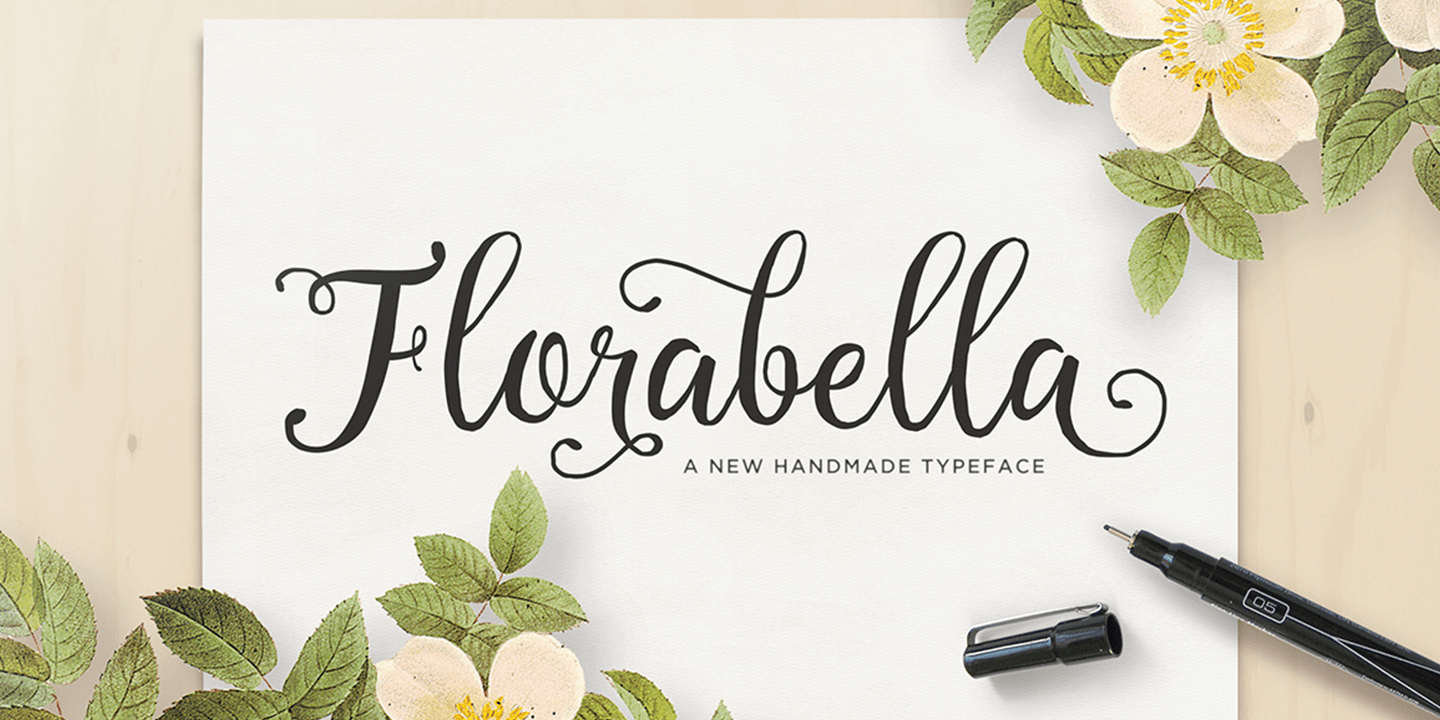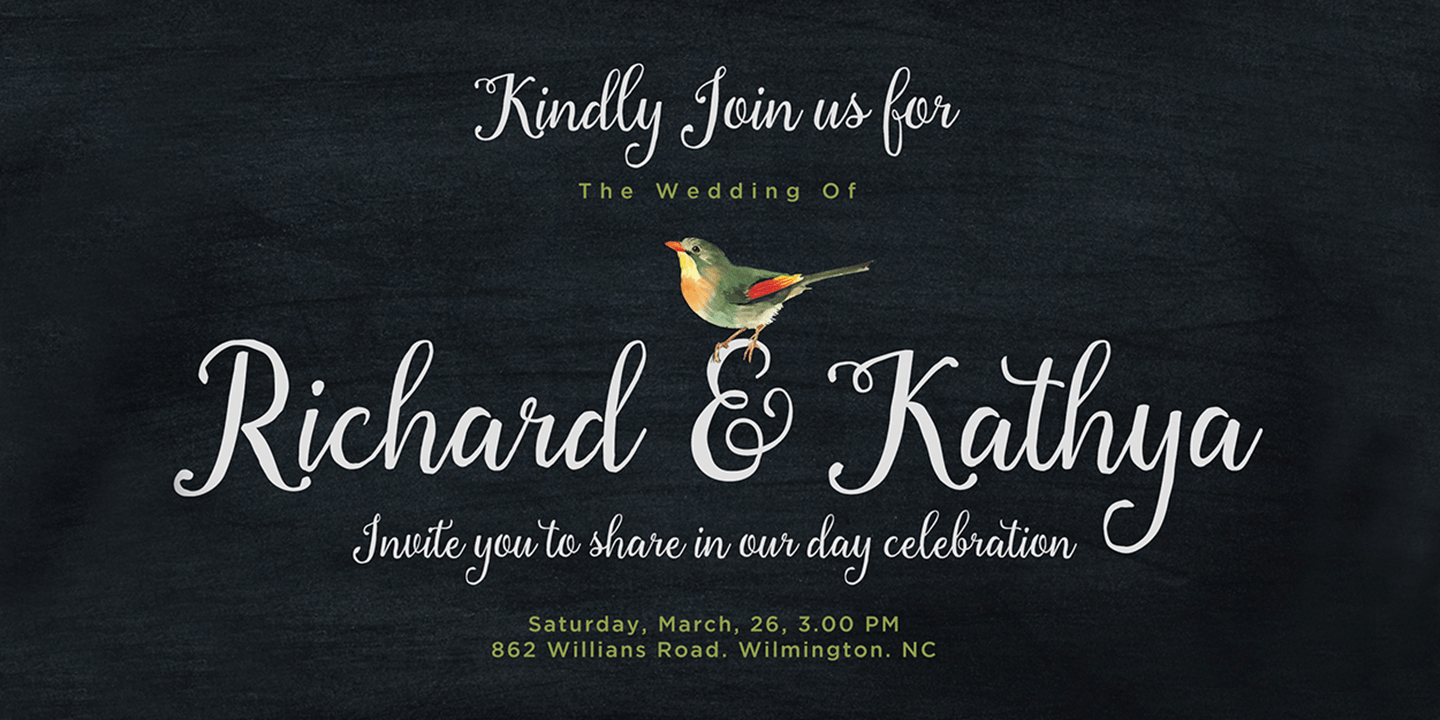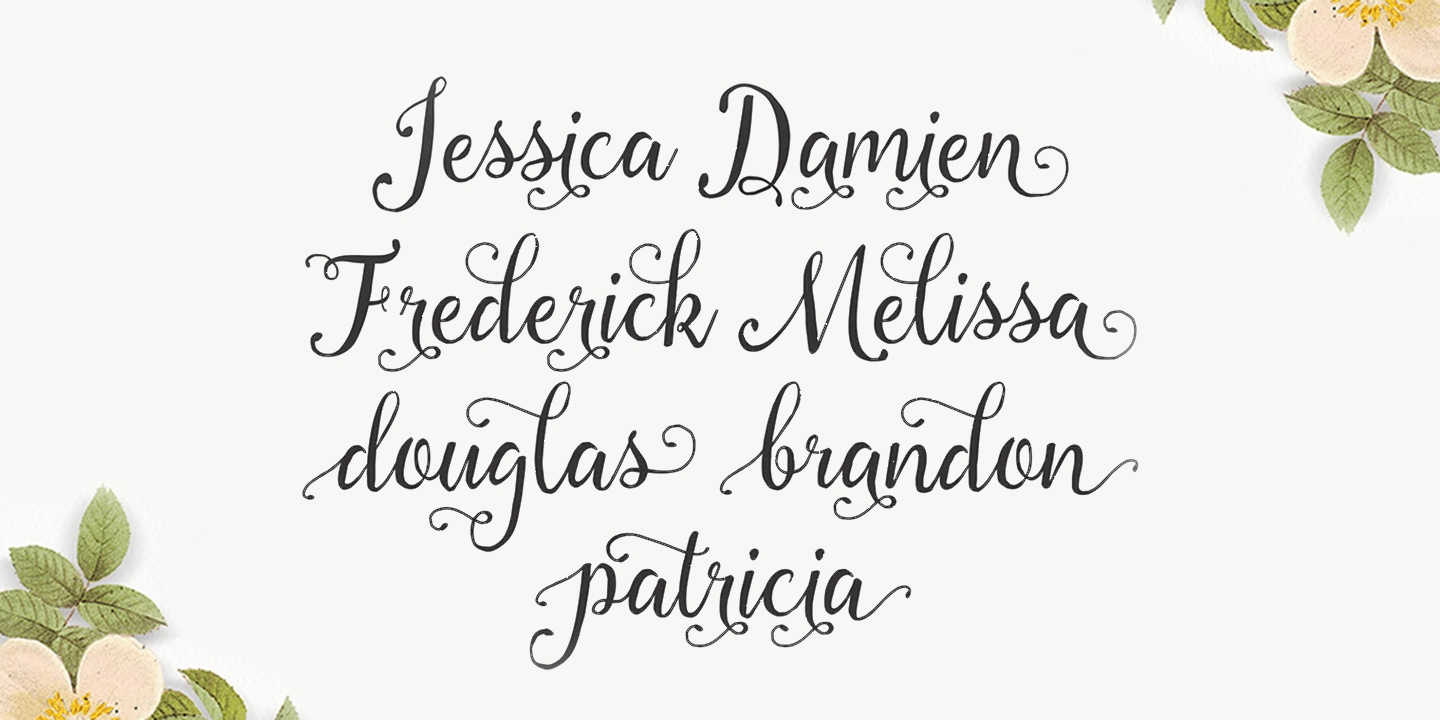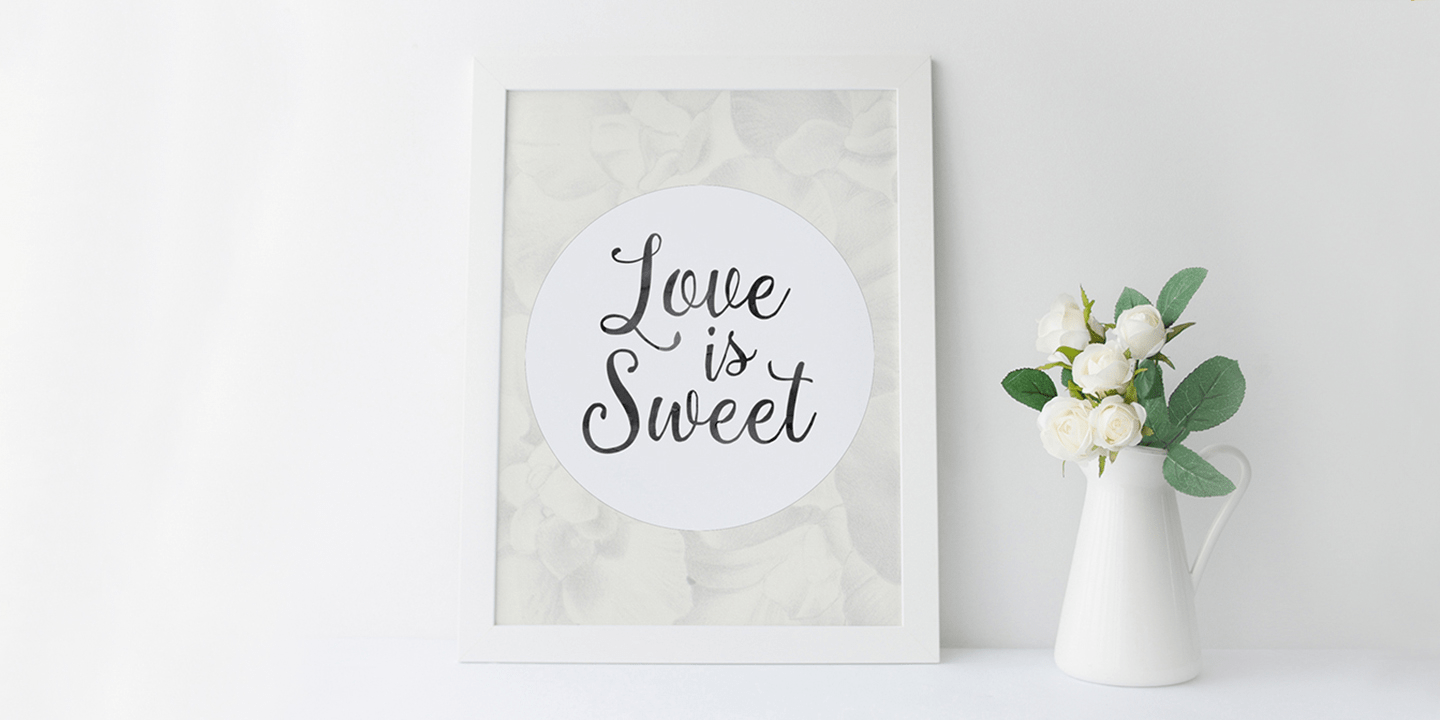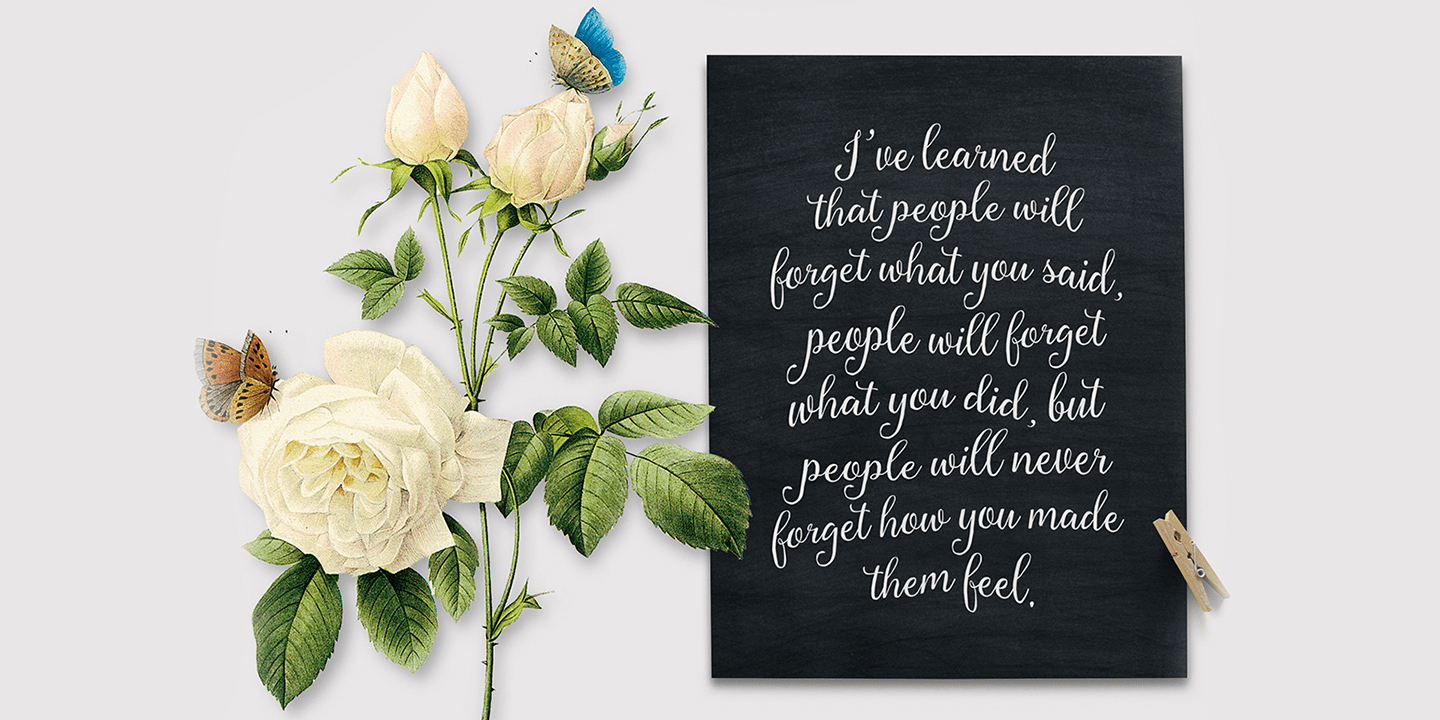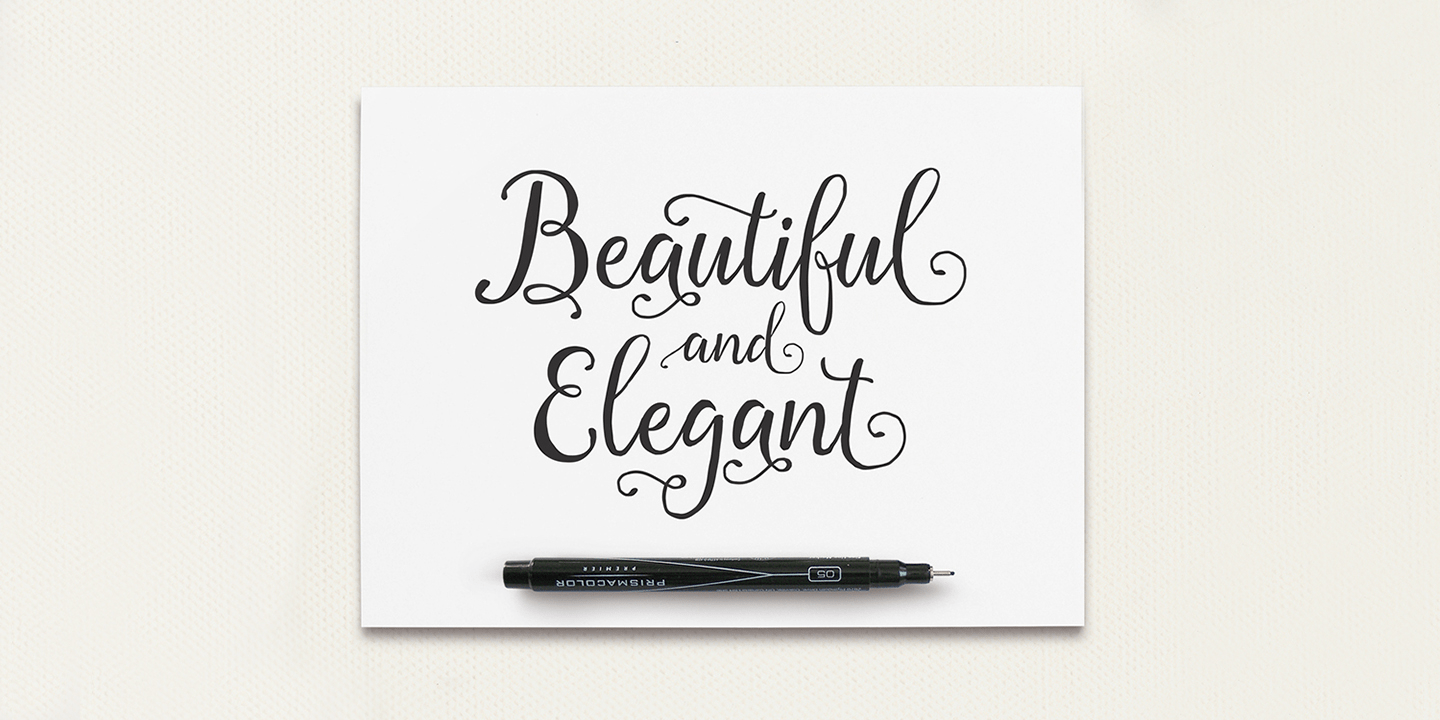
Florabella
Florabella is a new handmade script font with an irregular baseline. Rough edges create a trendy look and harmony.
Florabella looks lovely on wedding invitations, thank you cards, quotes, greeting cards, logos, business cards and more. It is perfect to accompany ink or watercolour.
The font features 290+ glyphs and 110 alternate characters - including initial and terminal letters, alternates, ligatures and multiple language support.